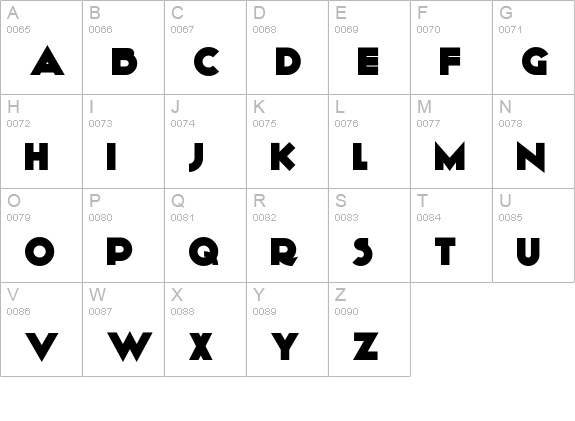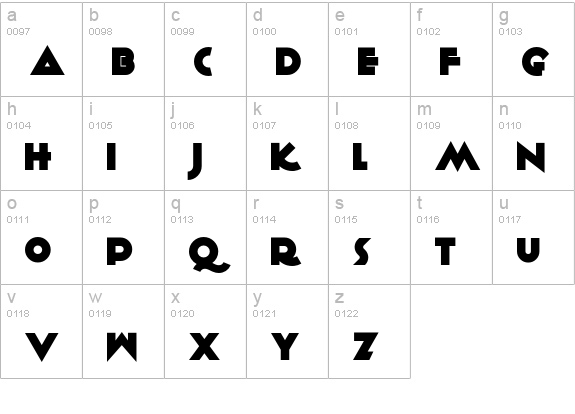
KiloGram Font Details
Introducing KiloGram, a bold and impactful font that will make your designs stand out from the crowd. With its striking weight and sleek lines, KiloGram commands attention and exudes confidence. This versatile typeface is perfect for a wide range of design projects, from branding and packaging to headlines and posters. Whether you're creating a modern and edgy look or aiming for a more classic and timeless feel, KiloGram has the flexibility to adapt to your creative vision. What makes KiloGram even more enticing is that it is a free font, available for download at FontsMarket.com. Yes, you read that right - this stunning typeface can be yours without any cost. We believe that great design should be accessible to all, and KiloGram embodies this philosophy by being freely available to everyone. Crafted with meticulous attention to detail, KiloGram offers a balanced and harmonious blend of curves and straight lines, creating a well-defined and uniform appearance. Its bold and robust letterforms provide excellent legibility even at smaller sizes, making it suitable for both print and digital mediums. With KiloGram, you can effortlessly create eye-catching headlines, captivating logos, and engaging typography that leaves a lasting impression. It's time to take your design game to the next level with this remarkable font. So why wait? Download KiloGram today from FontsMarket.com and experience the power and versatility of this exceptional typeface. Let your creativity soar as you explore the endless possibilities that KiloGram brings to your design projects. Embrace the freedom of design and make a bold statement with KiloGram - the font that is not only visually stunning but also easily accessible to all.